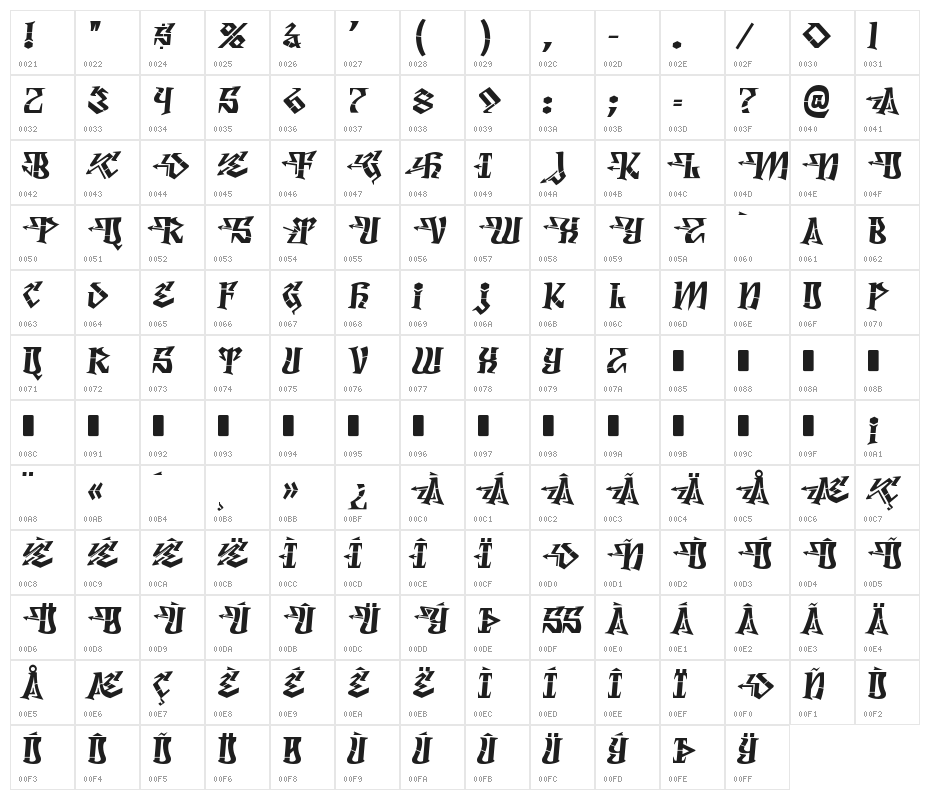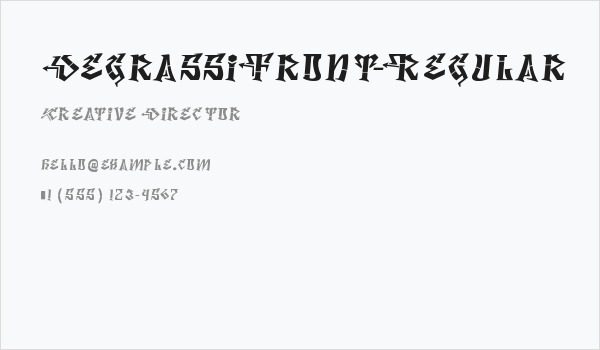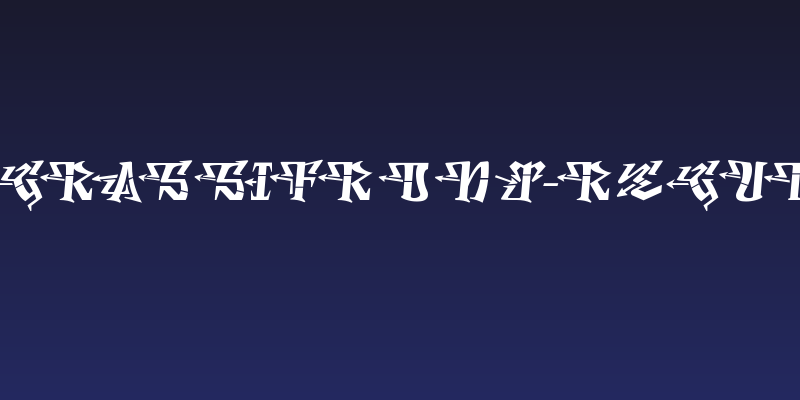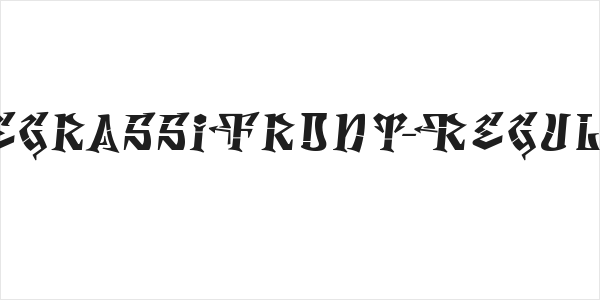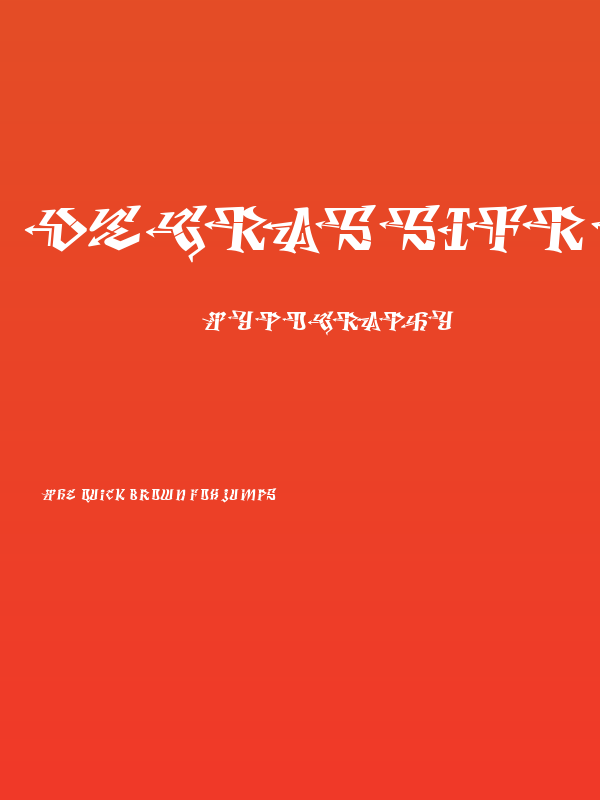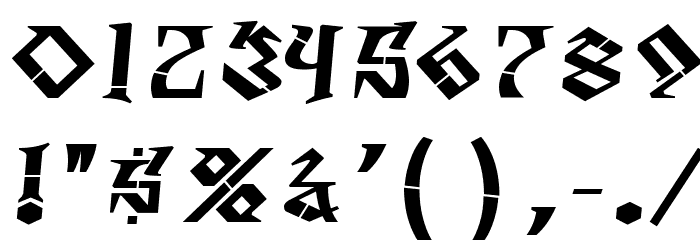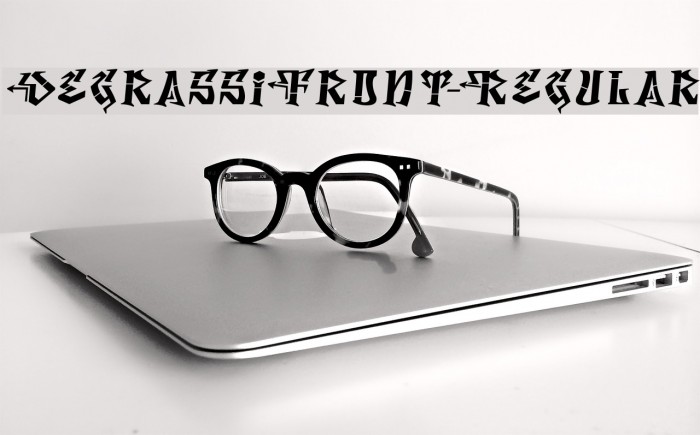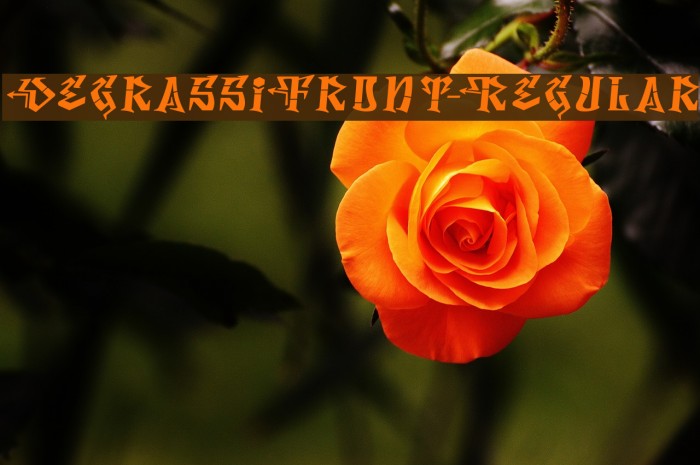
DegrassiFront-Regular Font
This font features a bold and striking design with a distinctly angular and geometric style. The characters are crafted with sharp edges and a strong presence, making them highly suitable for attention-grabbing headlines or titles. The uppercase letters exhibit a uniform height, while the lowercase letters maintain a consistent style, ensuring readability despite the intricate design. The numerals are equally bold, matching the overall aesthetic of the font. Special characters are included, maintaining the same angular and bold characteristics, making this font versatile for various design needs.
| Proposed Projects | This font is perfect for projects that require a strong visual impact, such as posters, album covers, branding, and logo design. Its unique style can also be used in video game graphics or any creative project that seeks to convey a sense of boldness and |